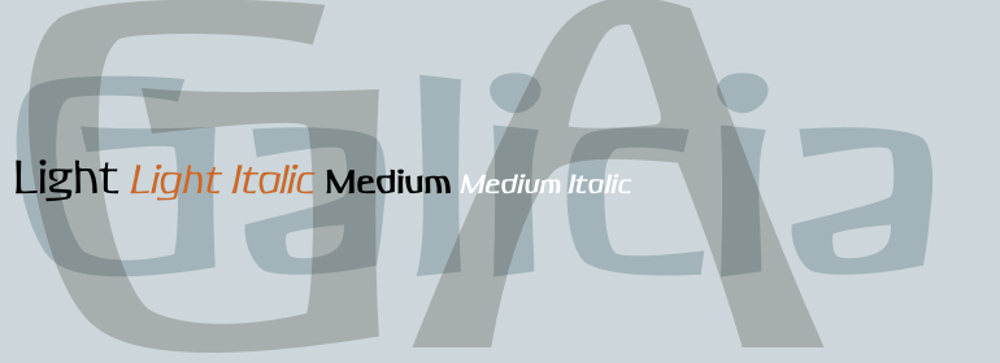
Galicia
Galicia font
Galicia Font Family was designed by Rian Hughes and published by Device. Galicia contains 4 styles and family package options. Galicia is a looser calligraphic serif that has unusual forms that are seen to good effect in characters like the lower case a. It is suggested for use where a more formal and classic yet still warm and calligraphic look is appropriate.